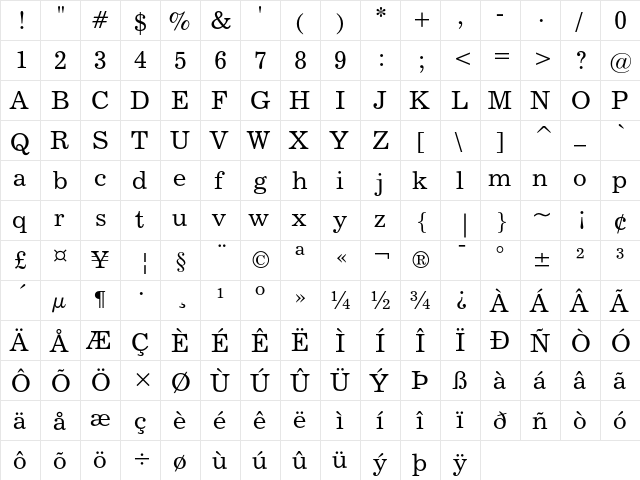
News 702 Regular
Design Context for News 702 Typeface
News 702 offers clean, dependable letterforms without strong stylistic allegiance, making it a practical choice for designers who need flexibility.